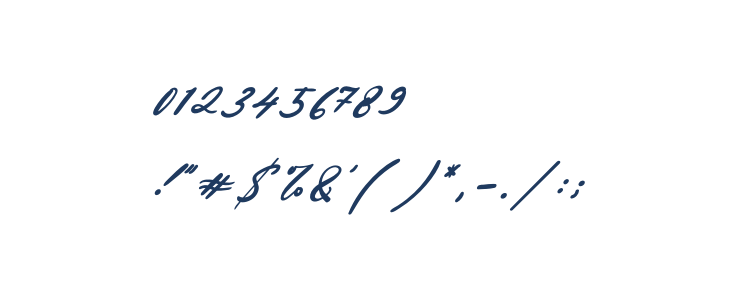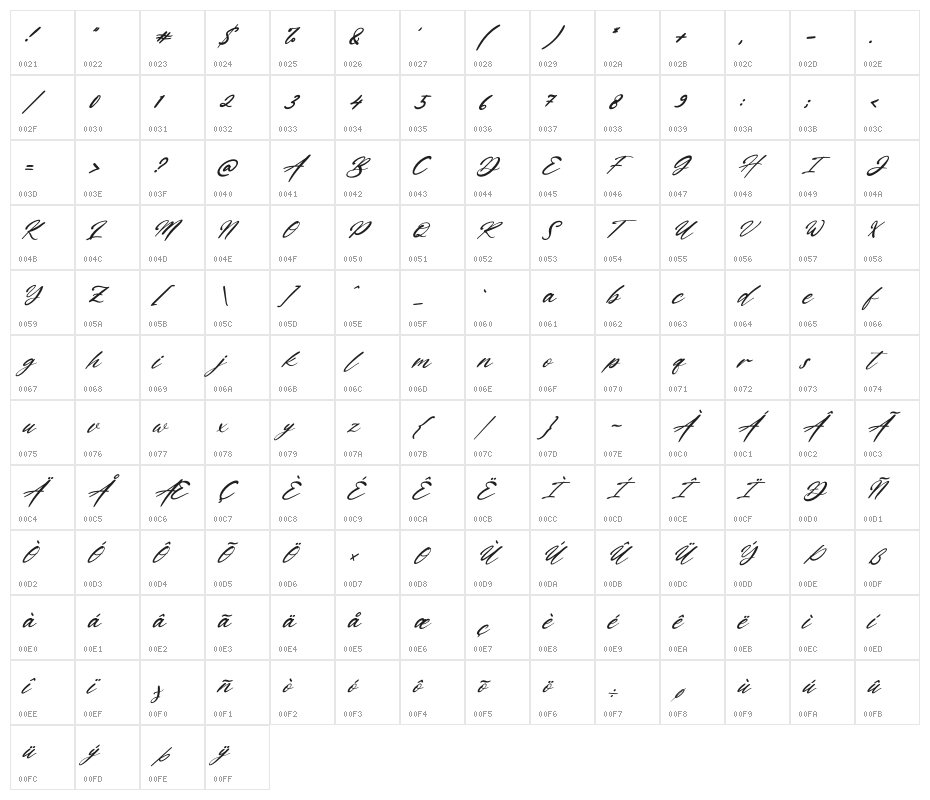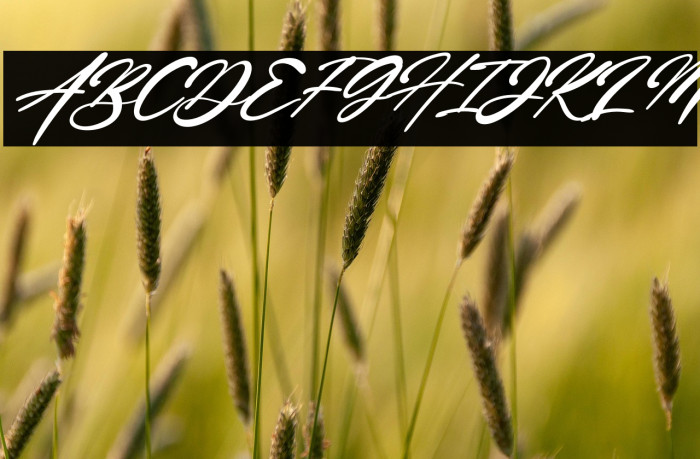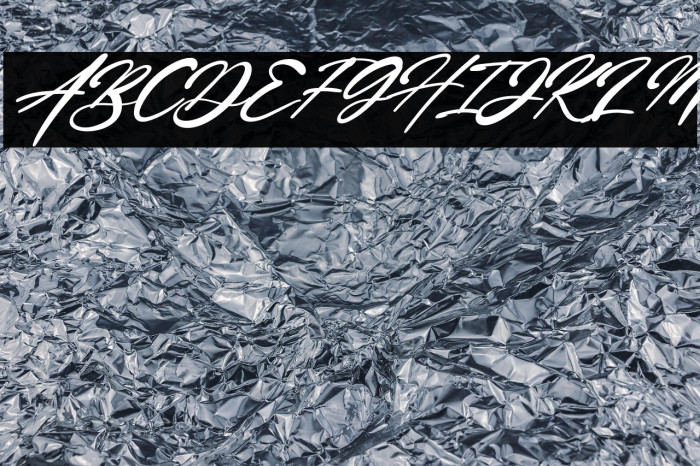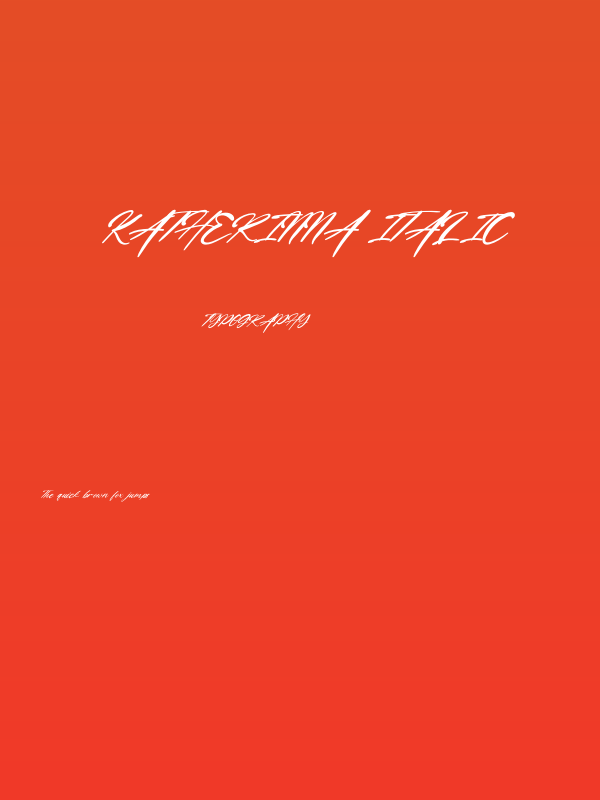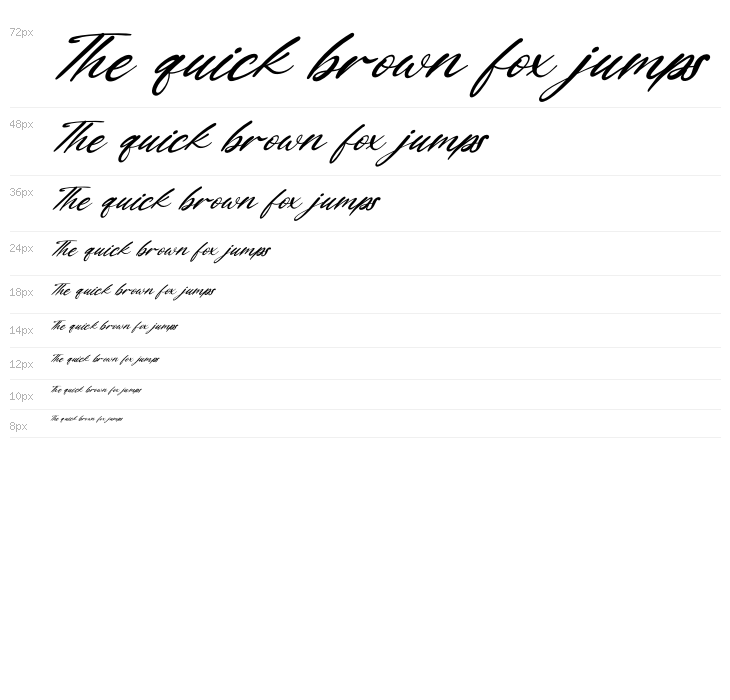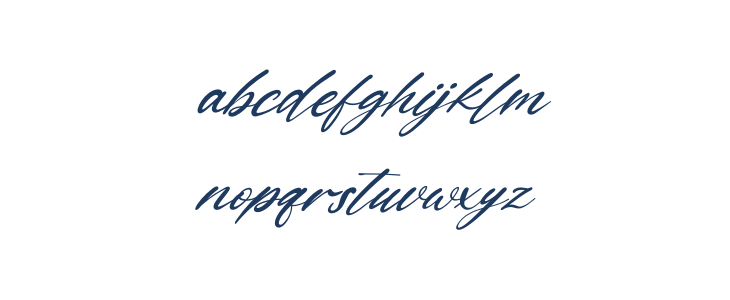
Katherinna Italic Font
Katherinna Italic Description
This elegant script font features a flowing, cursive style with a distinct italic slant, giving it a dynamic and sophisticated appearance. The characters are interconnected with smooth, sweeping strokes, creating a sense of fluidity and movement. The uppercase letters are bold and prominent, while the lowercase letters maintain a consistent rhythm, enhancing readability. The numerals and special characters are designed to complement the overall aesthetic, ensuring versatility across various applications. The font's high contrast in stroke thickness adds to its dramatic flair, making it suitable for projects that require a touch of elegance and style.
| Overall Style | Elegant, Decorative |
| Use Case | Headlines, Invitations, Branding |
| Proposed Projects | Ideal for wedding invitations, elegant branding, personal signatures, and decorative headings. |